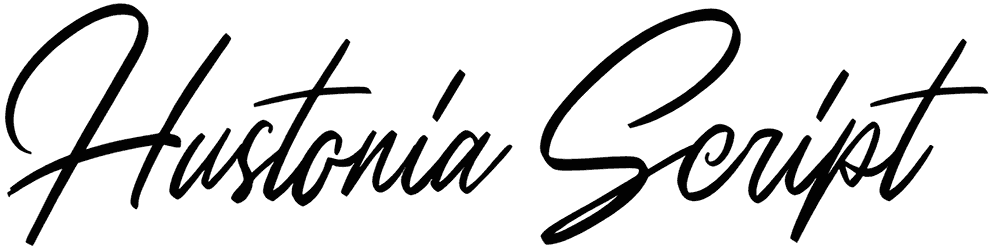
Hustonia Script Font
While you are seriously looking for a viable font to design eye-grabbing diplomas, documents, invitations, or book covers, suddenly a lovely script font such as Hustonia Script comes from nowhere and provides a wonderful opportunity to surprise all customers by sharing a vibe of personalization, precision, and fierceness with them.
This calligraphy font carries cursive and rounded characters, thus it adds an artistic touch to your artwork.